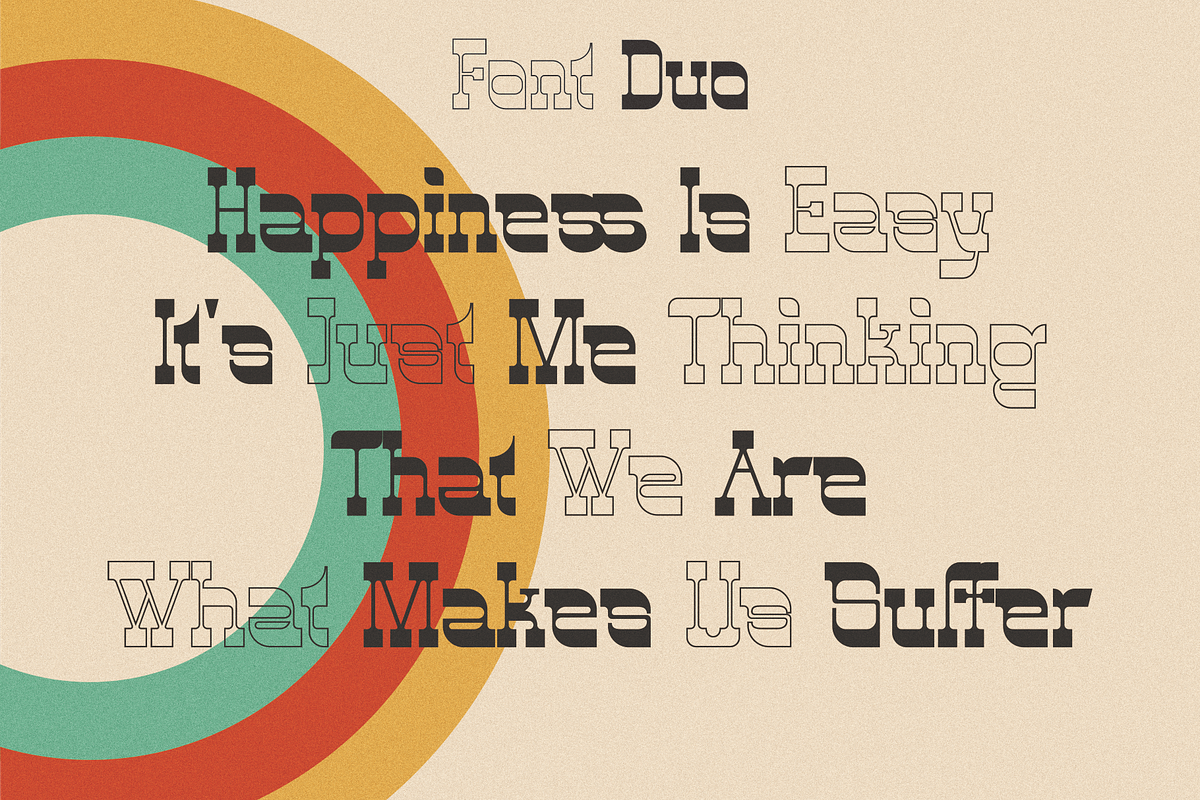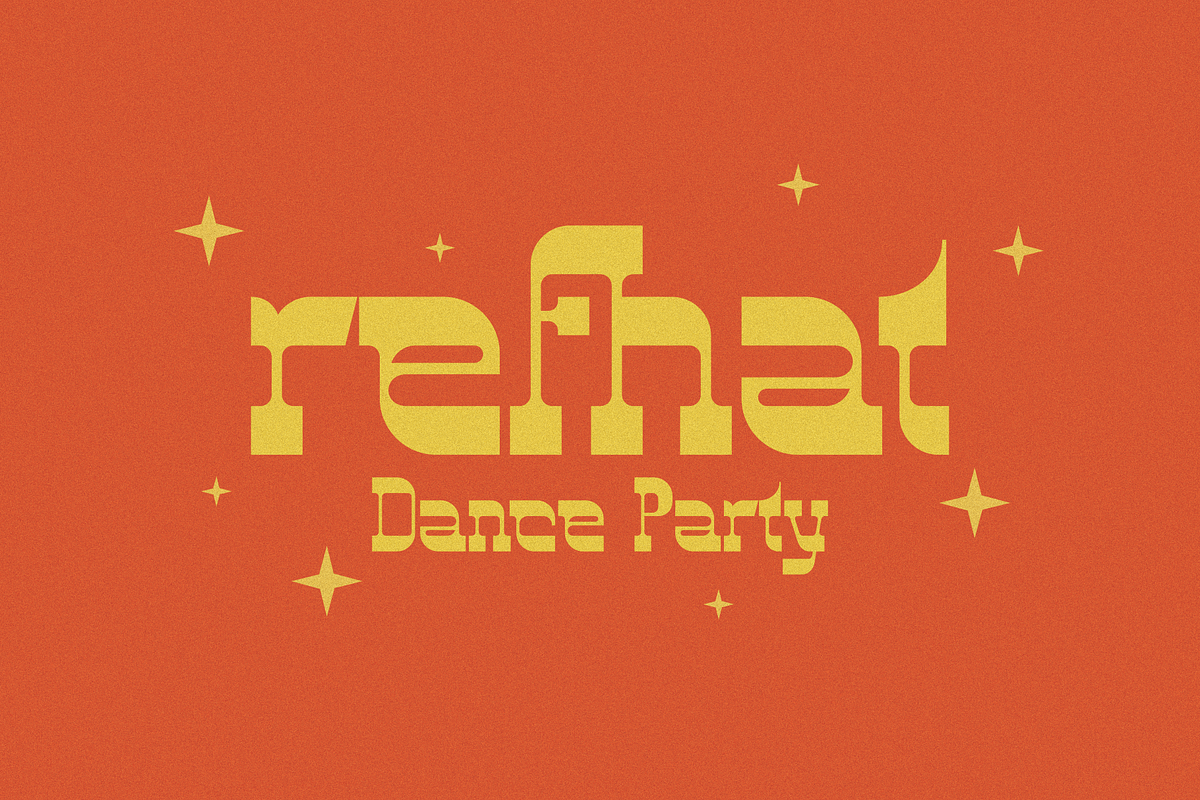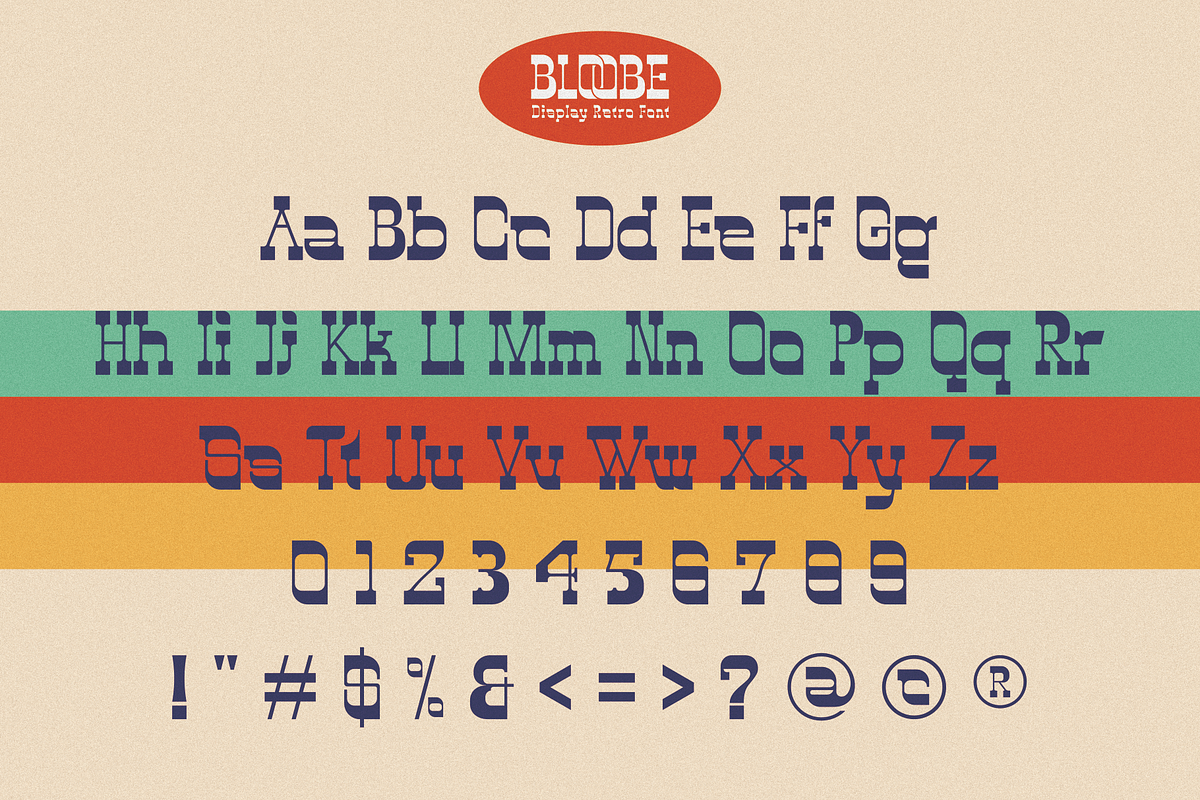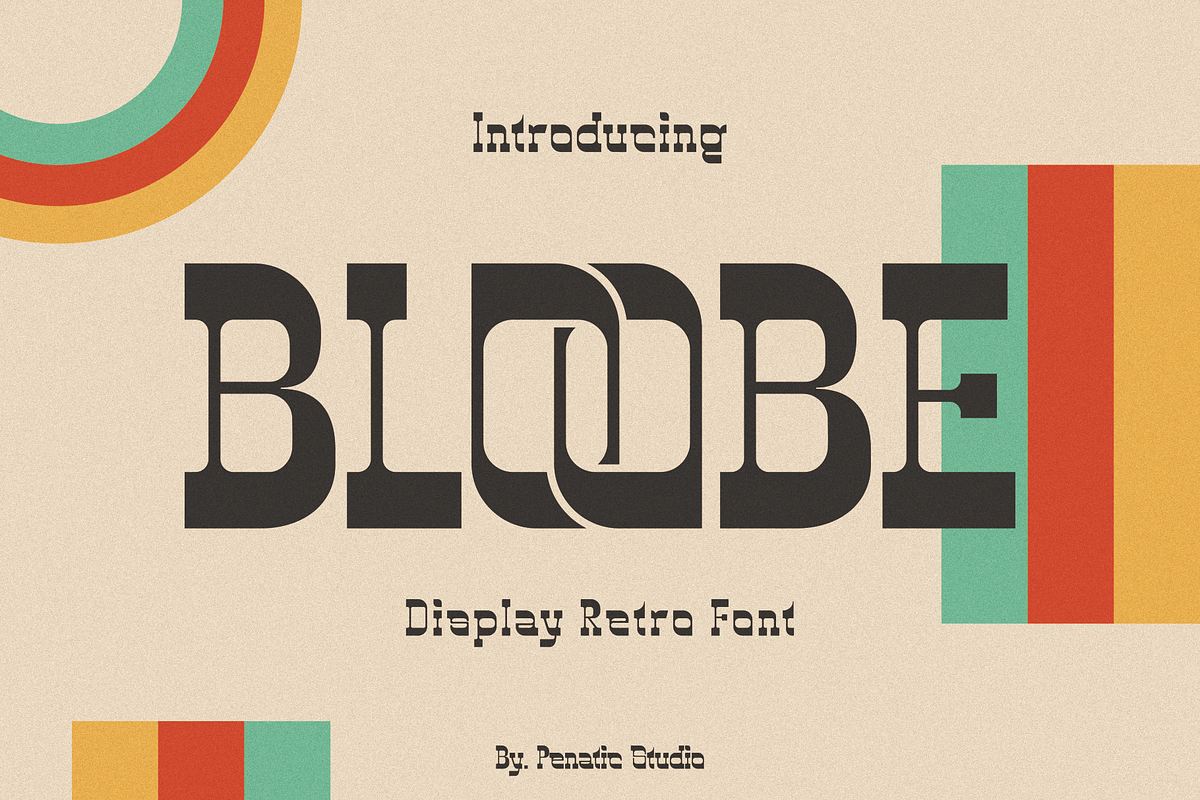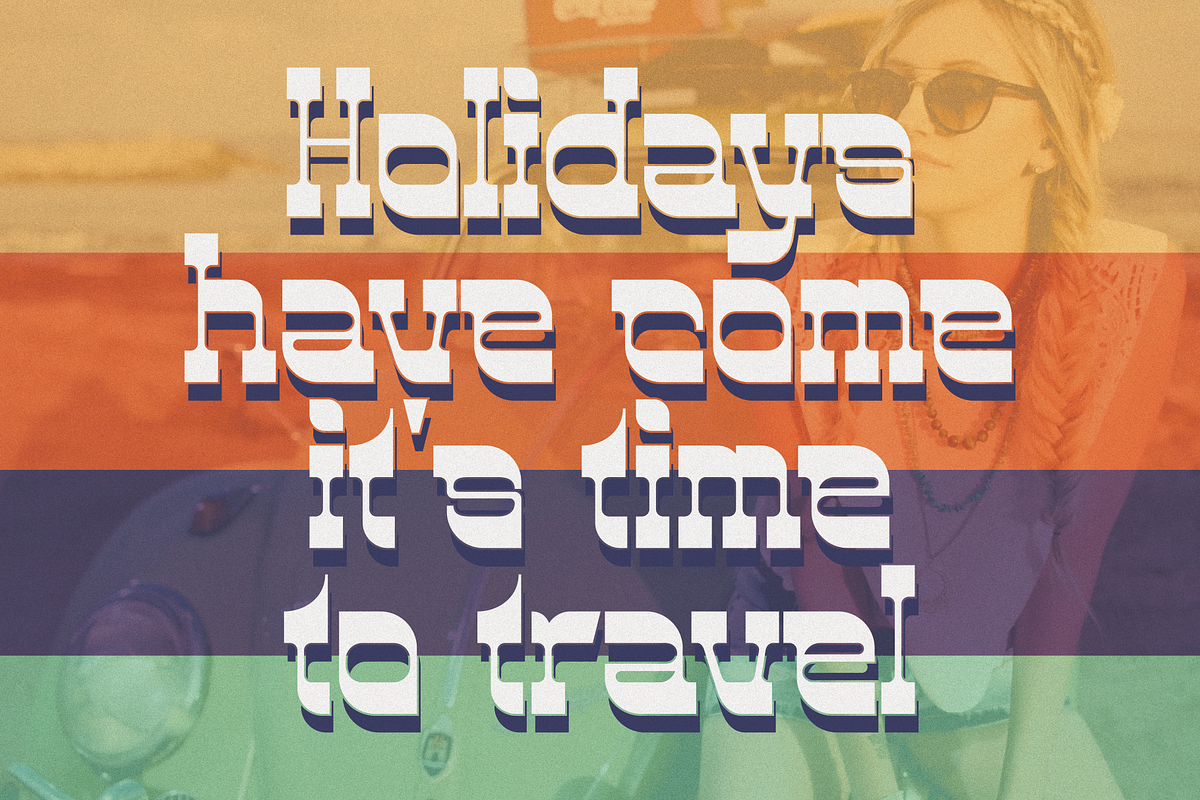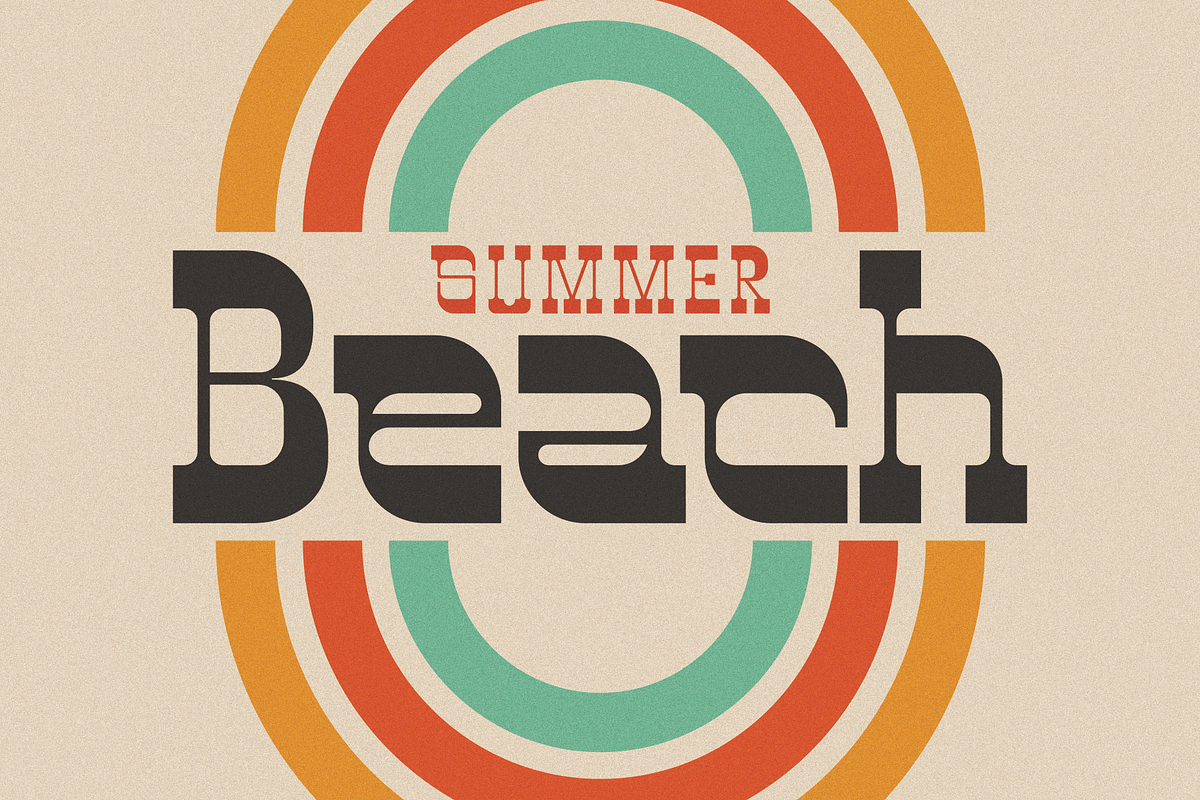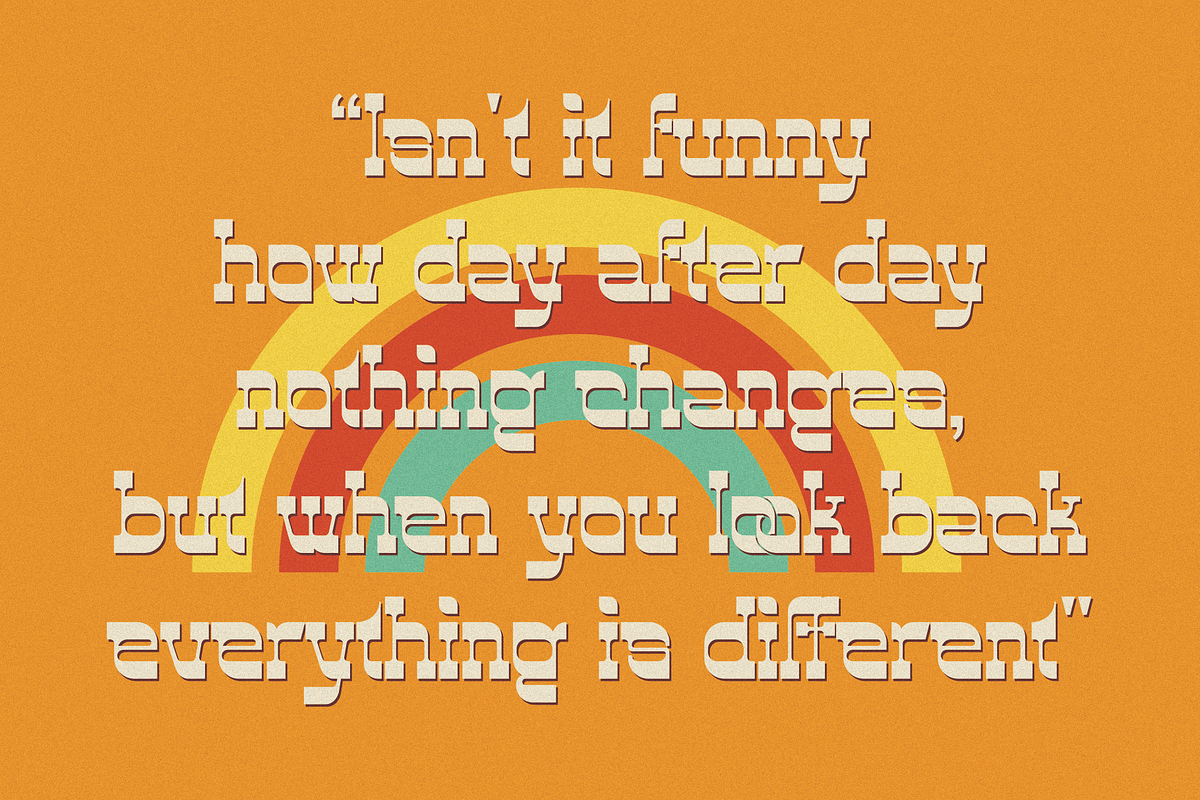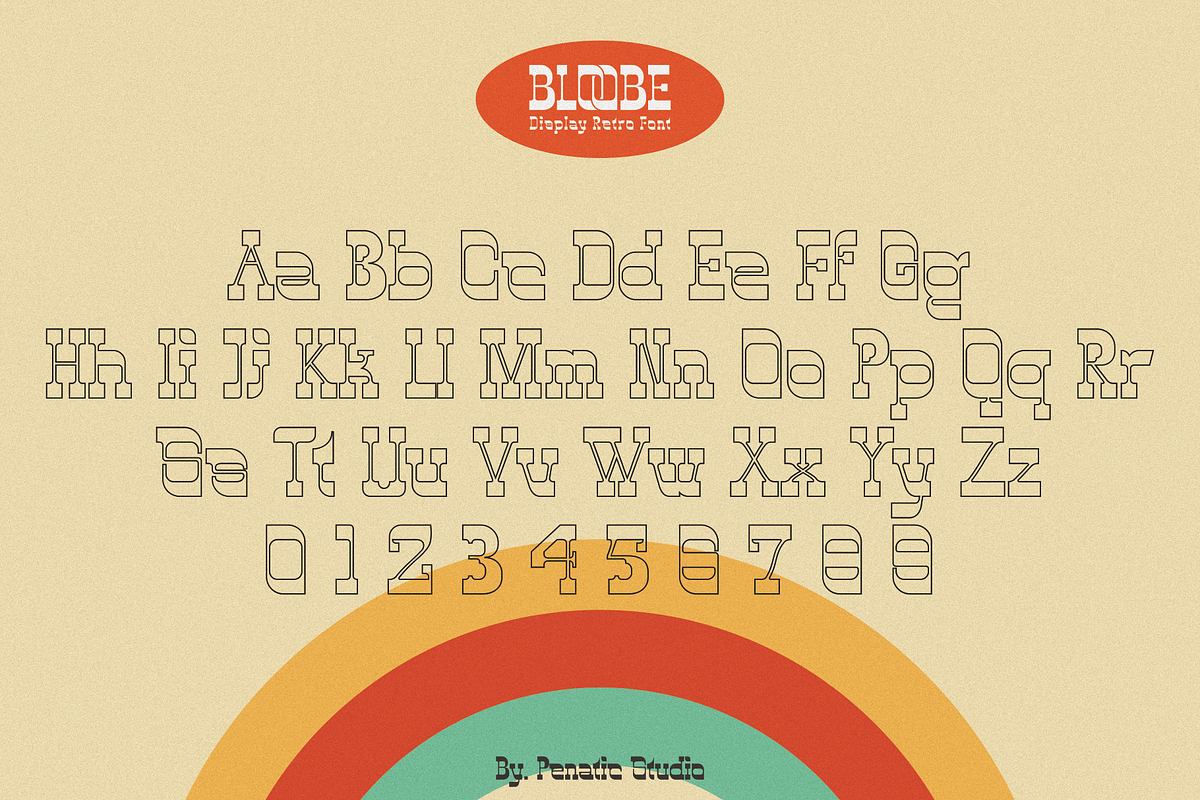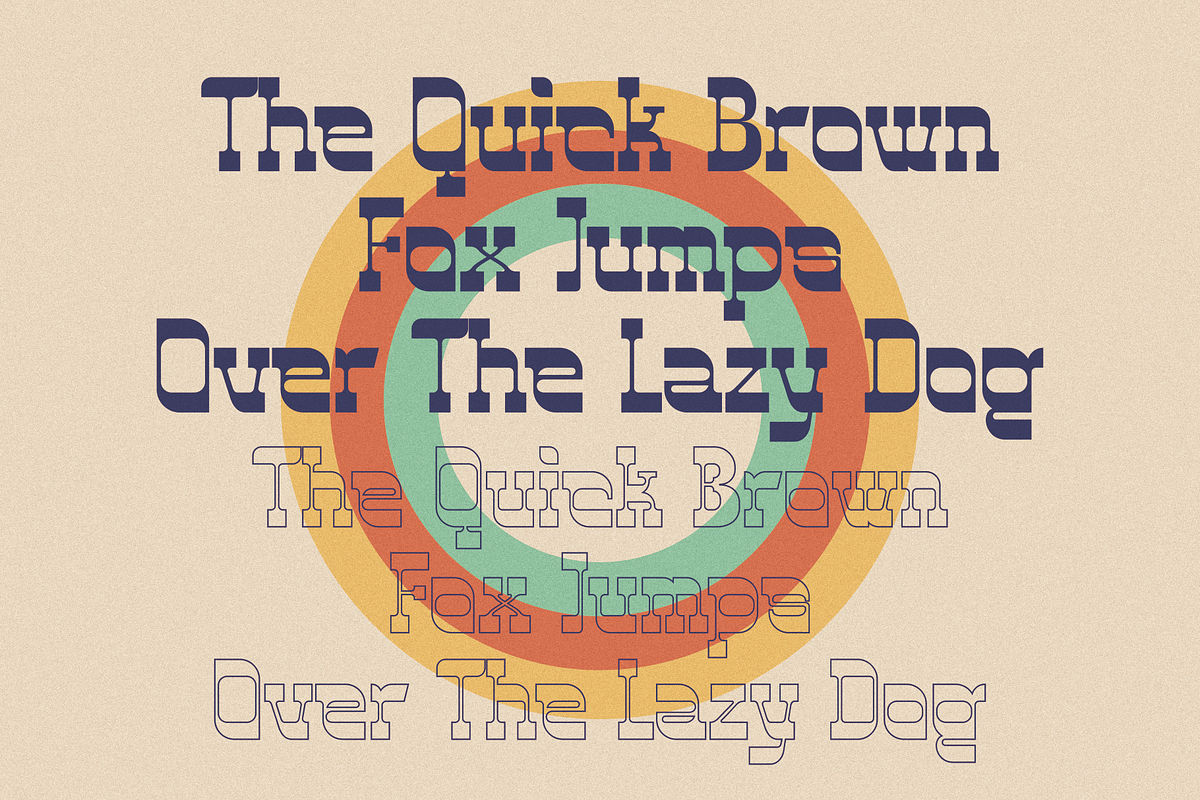
Bloobe _ Display Retro Font
BLOOBE Display Retro Font takes inspiration from typography styles that were popular in the 1950s to 1980s, with a classic touch and vintage feel that creates a nostalgic atmosphere. Great for use in design projects that aim to convey a vintage feel or revive a classic aesthetic, such as concert posters, product packaging, logos and other promotional materials. With their signature charm and ability to evoke feelings of nostalgia, retro display fonts are a popular choice for designers who want to take a unique and striking approach to their creations.